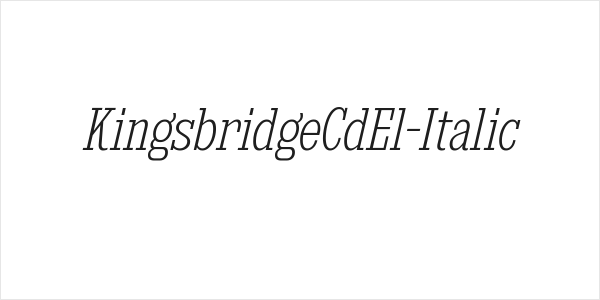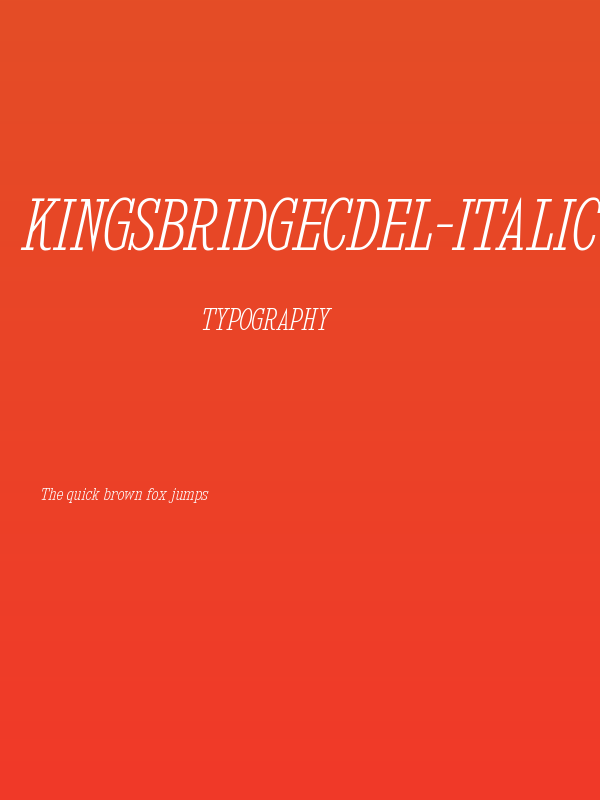
KingsbridgeCdEl-Italic Font
KingsbridgeCdEl-Italic Description
This elegant and sophisticated font features a classic italic style with a refined and elongated form. The characters exhibit a graceful slant, enhancing the sense of motion and fluidity. The serifs are delicately crafted, providing a traditional touch while maintaining readability. The font's structure is well-balanced, with consistent stroke widths that offer a harmonious appearance. The numerals and special characters are designed to complement the overall aesthetic, ensuring versatility across various applications. Its timeless appeal makes it suitable for both modern and vintage-themed projects.
| Proposed Projects | Ideal for editorial design, book covers, formal invitations, and branding materials that require a touch of elegance. |